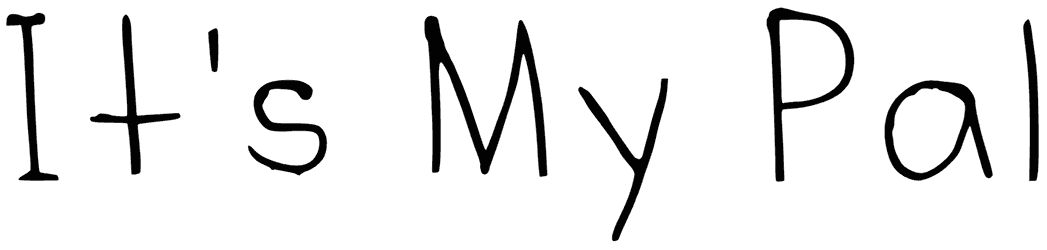
It’s My Pal Font
It’s My Pal is a lovely thin font with a charming design. In spite of its absence of numeric characters, this handwritten font may be utilized for a wide variety of projects, such as logos, blog headlines, branding, poster designs, and much more.
Now that you have this kindergarten font, you can get to work on creating something unique that is sure to catch people’s attention. We have many different fancy fonts in this collection here in RB.
Perfect for journals, artworks, and many more! 🙂